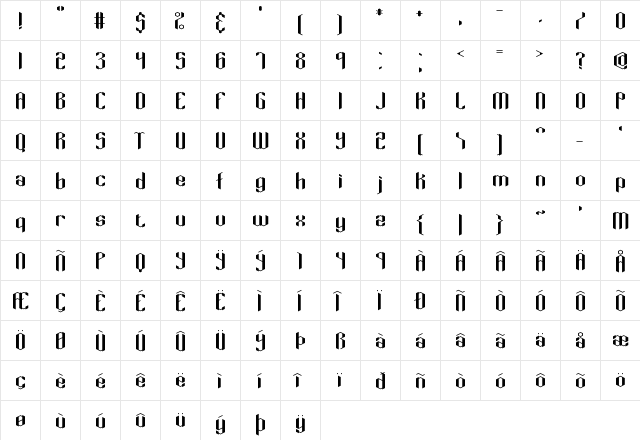
Key Ridge BRK Normal
| Foundry | ƎIGMA FONTS |
| Designer | ƎIGMA FONTS - Brian Kent |
Design Context for Key Ridge BRK Typeface
Key Ridge BRK is a composed and adaptable typeface that performs quietly and consistently across a wide range of design contexts.